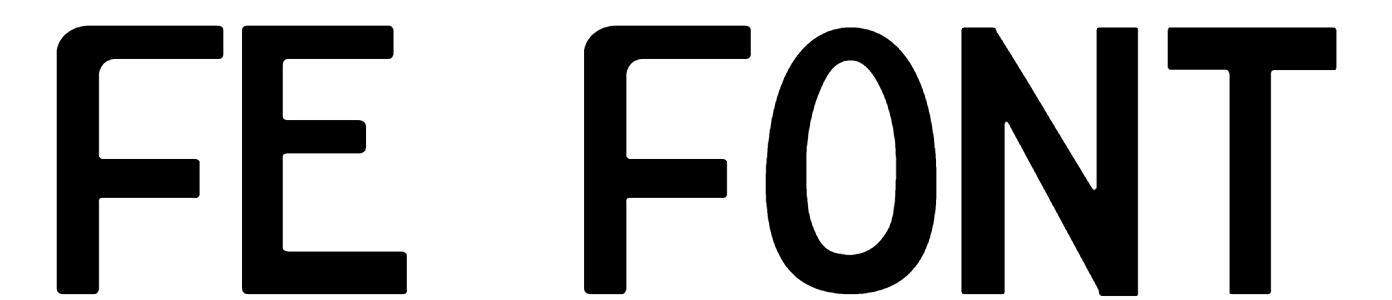
FE
FE is a basic font. It's a no-fuss, easy-to-read font that does its job without shouting for attention. It's a free download, and you can try it with your own text in the preview above first.
- Category: Basic font
With complete upper and lowercase letters and all ten digits, FE is ready for real wording, not just a single headline. Punctuation is limited, so look at the character map if you need a specific symbol. It doesn't include accented letters such as é or ñ, which makes it an English-only font.
Think of FE for everyday text, websites and clean logos. The file has no kerning data, so in logos and big titles check pairs like AV, To and Wa and tighten the spacing by hand. Fonts like this are workhorses: use them for body text, captions and anything people need to read quickly.
No. FE has no accented letters such as é, ñ or ü, so it's best for English text.
Add a more decorative display font for the headline if your design needs extra personality.